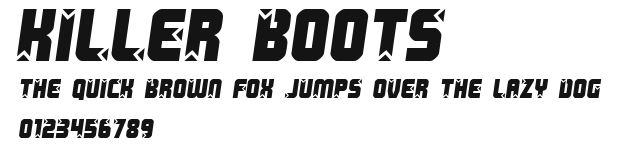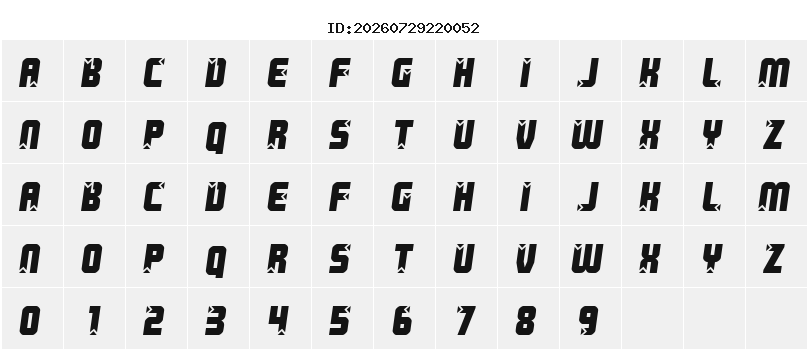
• Font Name: Killer boots
About Killer boots.ttf
Killer boots.ttf is a modern, elegant sans-serif font designed for ultimate readability and visual harmony. Perfect for branding, headlines, web design, and print materials.